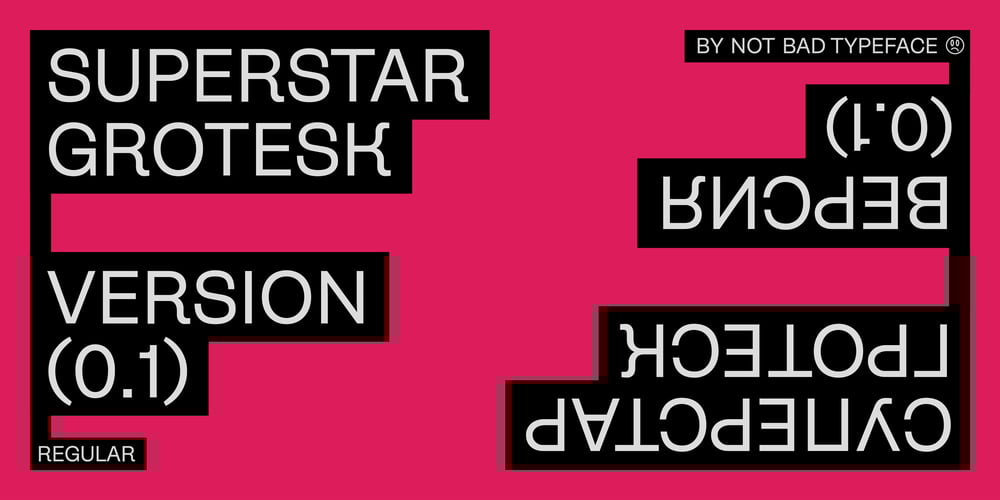
Superstar Grotesk
Superstar Grotesk font
Superstar Grotesk Font Family was designed by Ilja Pazderin and published by Not Bad Typeface. Superstar Grotesk contains 1 styles and family package options. Superstar Grotesk is a free interpretation of the first Cyrillic versions of Royal Grotesk and Akzidenz Grotesk, later the “Roublennaya” typeface is the same irremovable pop artist who lingered in the top of the typographic charts until the digital era, and formed the image of the Cyrillic alphabet in the 20th century.